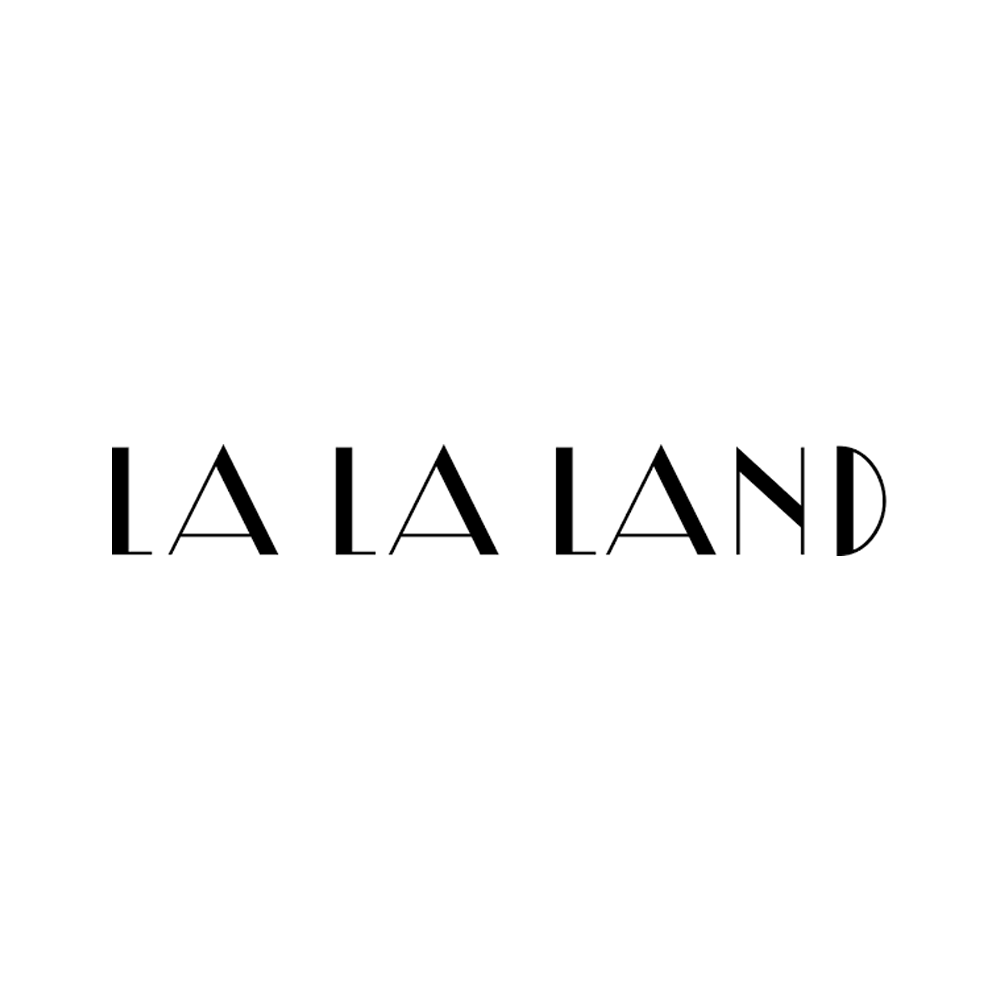
La La Land Font
Fonts in UseLa La Land is a 2016 American musical romantic comedy-drama film written and directed by Damien Chazelle, starring Ryan Gosling and Emma Stone as two struggling artists who fall in love while pursuing their dreams in Los Angeles. The film won six Academy Awards, including Best Director, Best Actress for Stone, and Best Original Song for "City of Stars."
Yasashii Bold font was utilized for the movie title on the poster. This art deco font was created by Ryoichi Tsunekawa, inspired by Japanese cosmetic packaging and posters of the late 1800s and early 1900s.